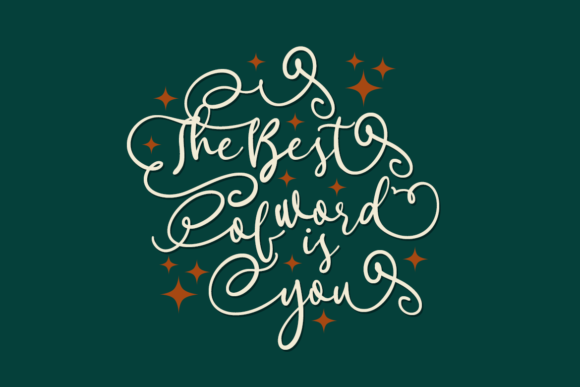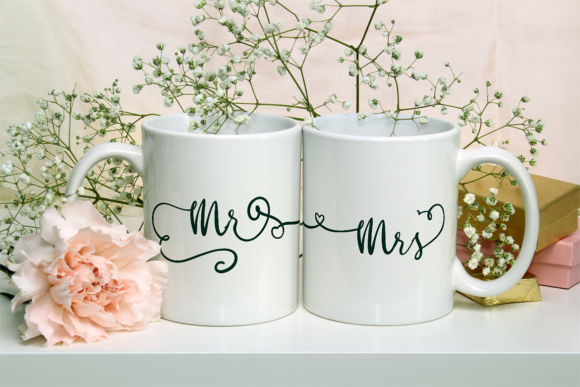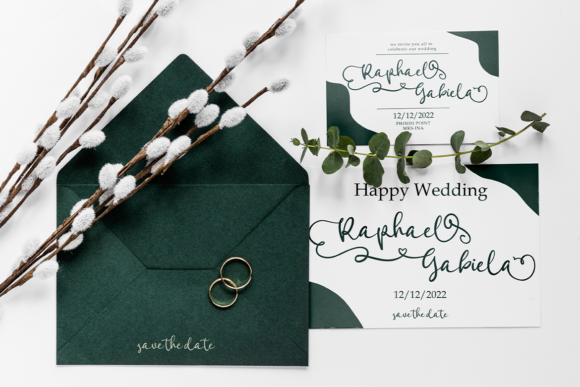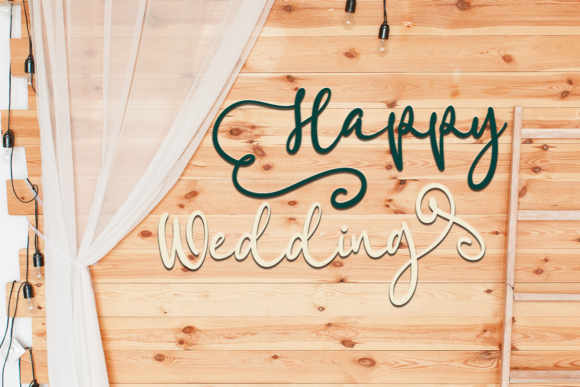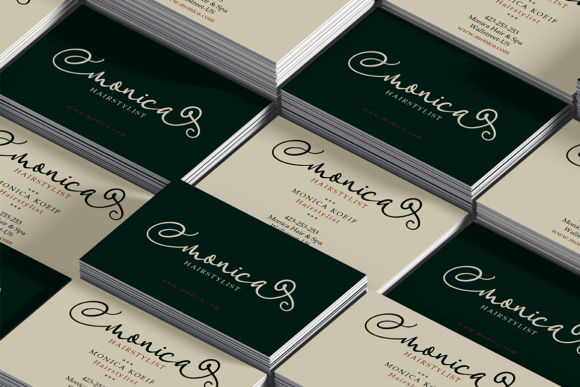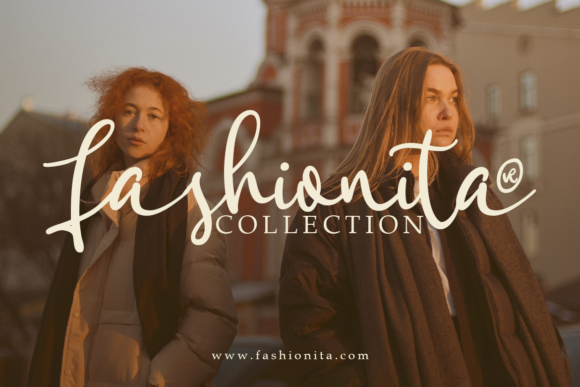
Introduction to Rosemary Font
As a designer, there’s nothing quite like the thrill of finding the perfect font to bring your creative project to life. It’s that moment when all the pieces fall into place, and your vision becomes a reality. For me, that moment came when I stumbled upon the enchanting Rosemary Font. With its romantic and sweet calligraphy style, this font is a true gem for any design project.
Imagine adding a touch of luxury and elegance to your next design project with the Rosemary Font. From wedding invitations to branding materials, this high-quality font is sure to make a lasting impression. And the best part? It’s encoded with PUA, making it easy to access all the amazing glyphs and ligatures you need to create a truly unique design resource.
Key Features of Rosemary Font
- Includes 6 unique font styles with varying weights and sizes
- Perfect for use in logos, branding, and other design projects requiring a touch of elegance
Honest Review: Rosemary Font
As a designer, I’m always on the lookout for high-quality design resources to elevate my creative projects. Recently, I had the opportunity to work with the Rosemary Font, and I must say it’s a great addition to my design arsenal.
Here are some things that work well with the Rosemary Font:
- ✨ Elegant and sophisticated design style that’s perfect for luxury brands and high-end creative projects.
- ✨ High-quality font with clear and readable text, making it suitable for both print and digital applications.
- ⚠️ Limited font styles available, which may not be suitable for designers looking for a wide range of options.
- ⚠️ Not ideal for casual or informal design projects, as it may come across as too formal.
Rosemary Font
Tips for Getting the Most Out of Rosemary Font
Common Use Cases for Rosemary Font
The Rosemary Font is ideal for a variety of creative projects, including invitations, greeting cards, and social media graphics. Its elegant and sophisticated design makes it perfect for wedding and event invitations, while its versatility makes it suitable for a range of other projects.